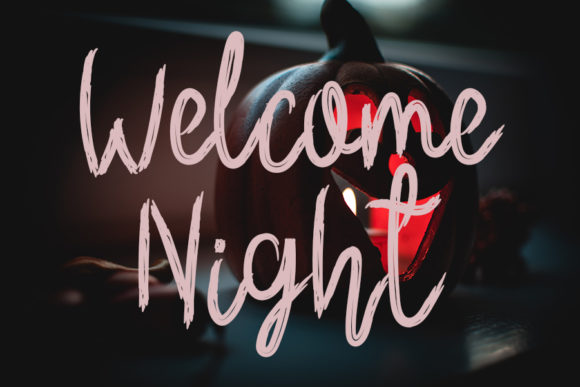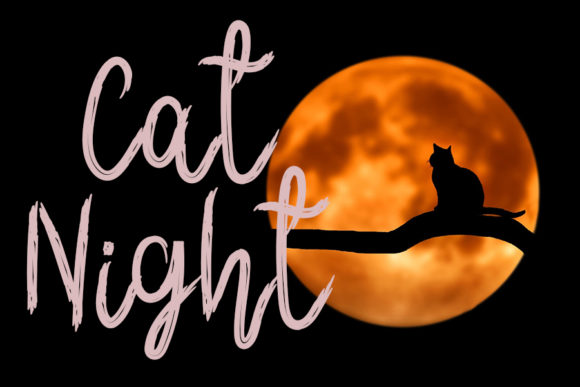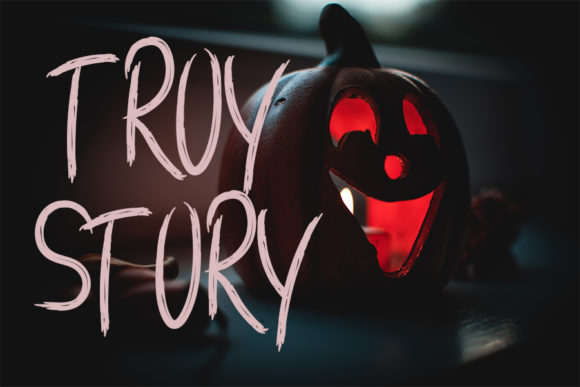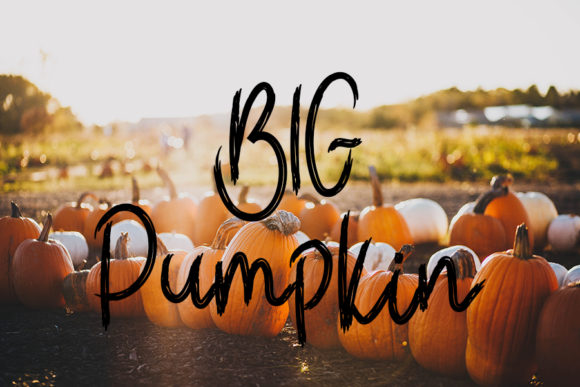
Halloween is Coming Font
About Halloween is Coming Font
Halloween Is Coming is a fun handwritten font with a spooky Halloween theme. Fall in love with its incredibly distinct and timeless style and use it to create spectacular designs!